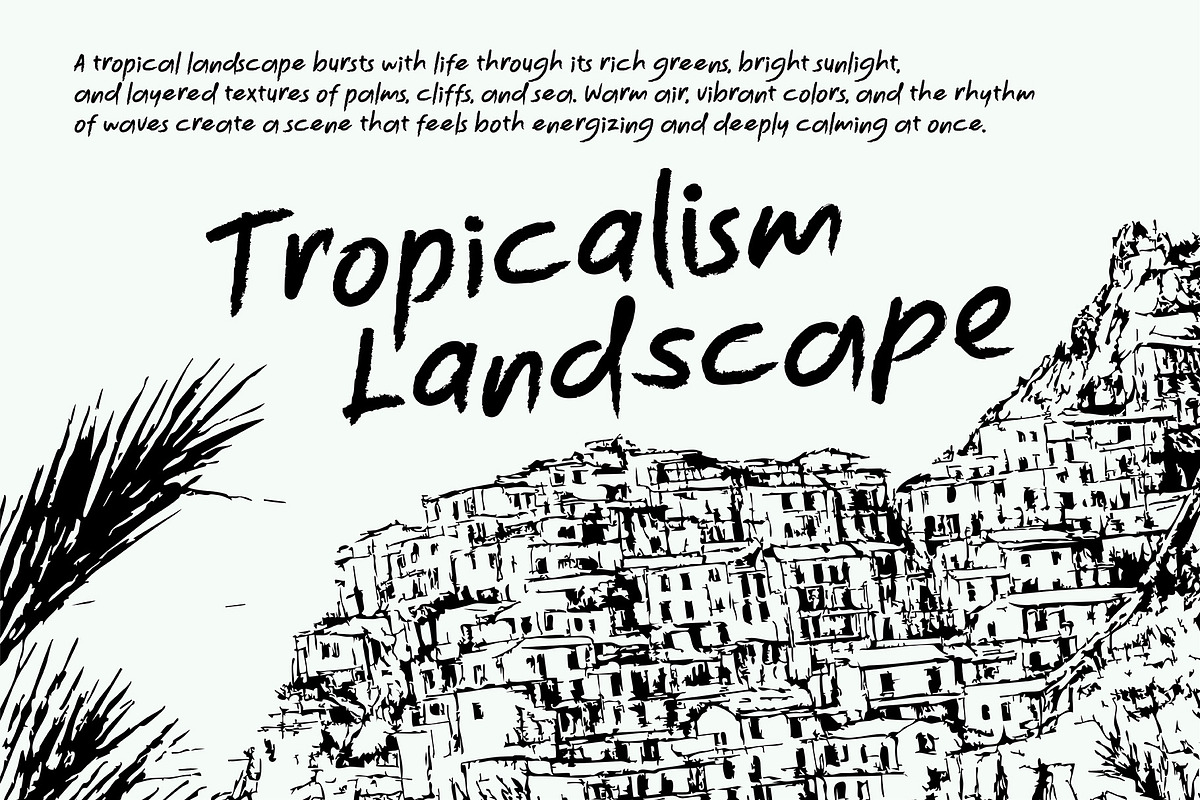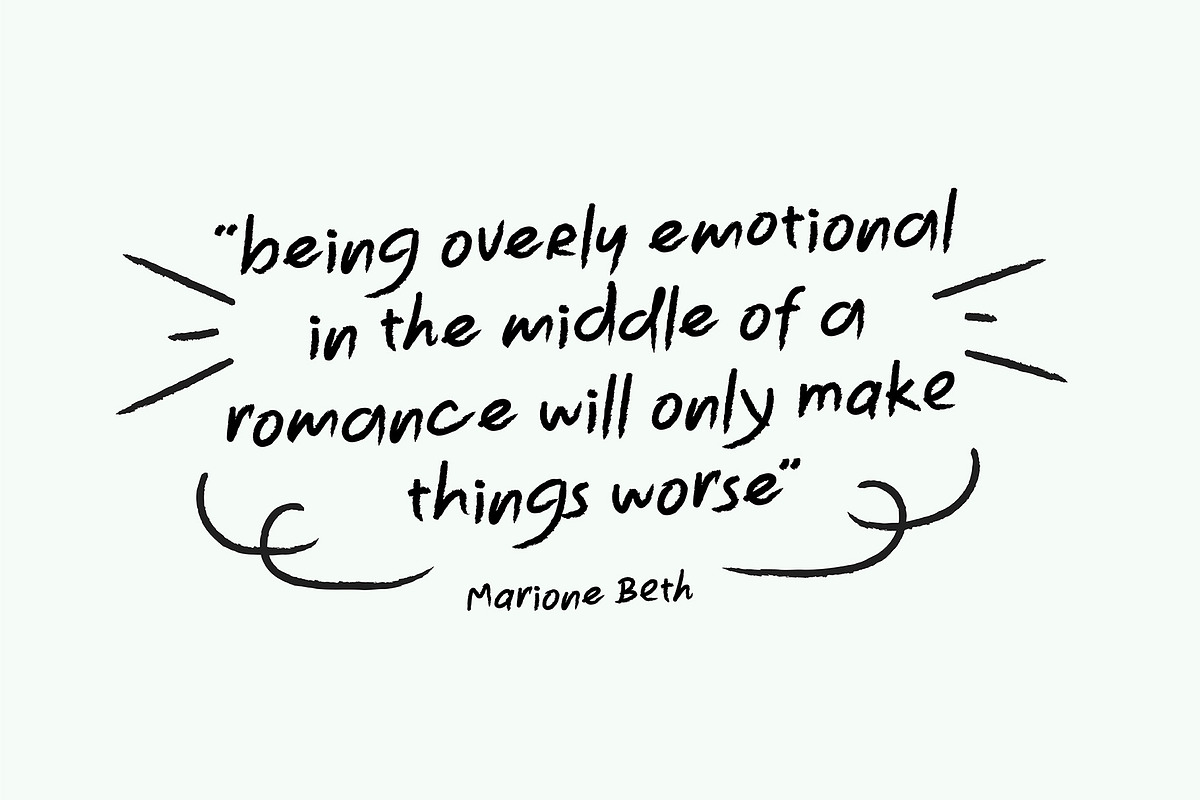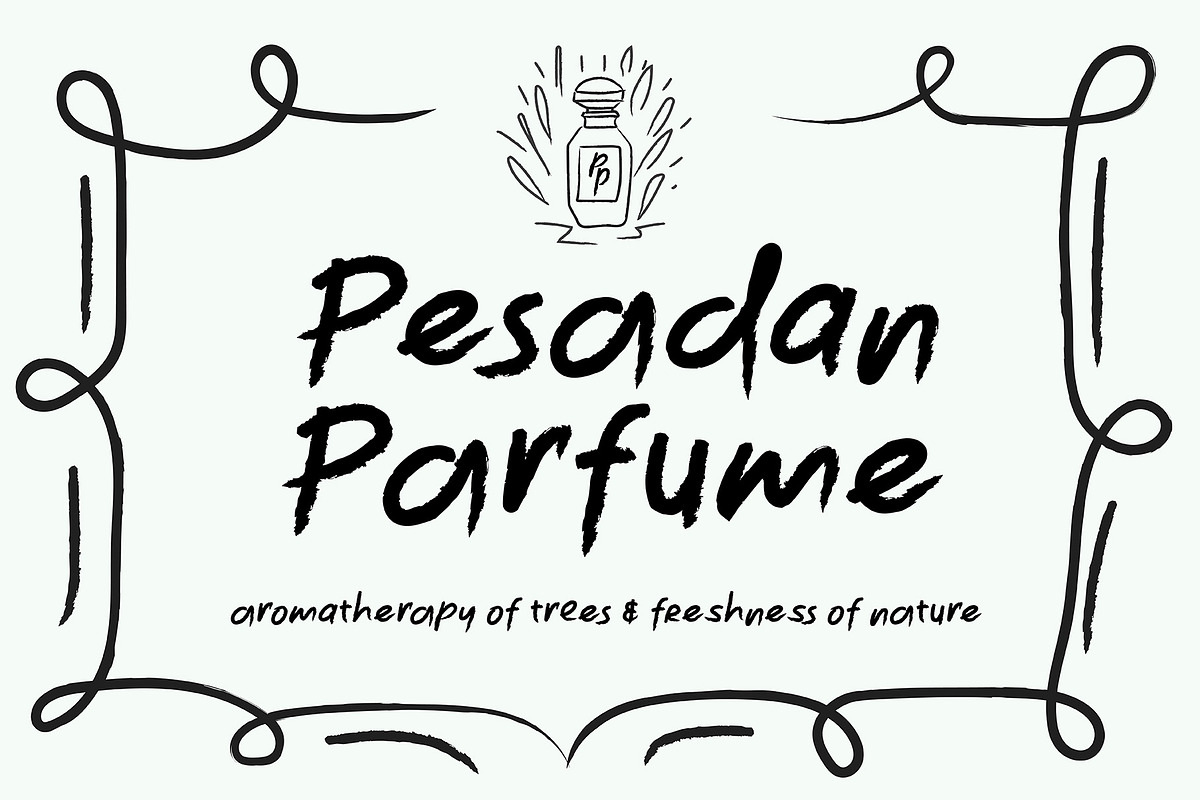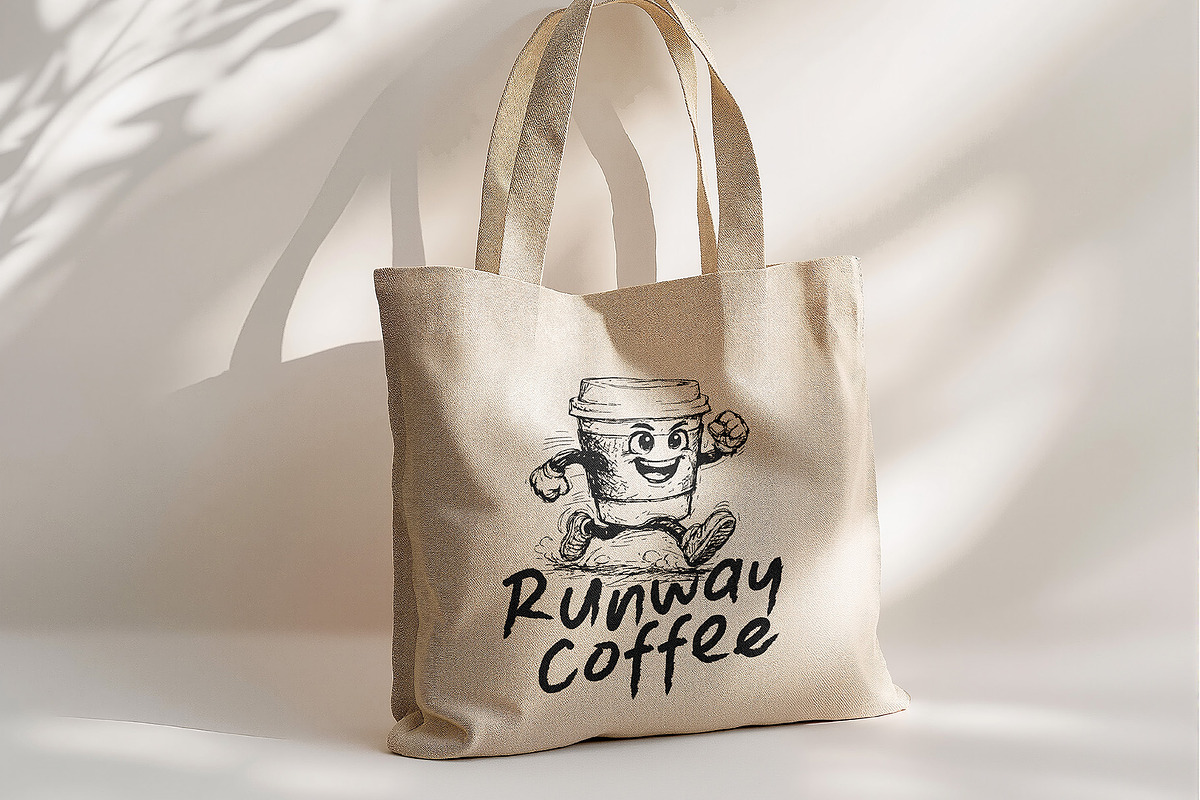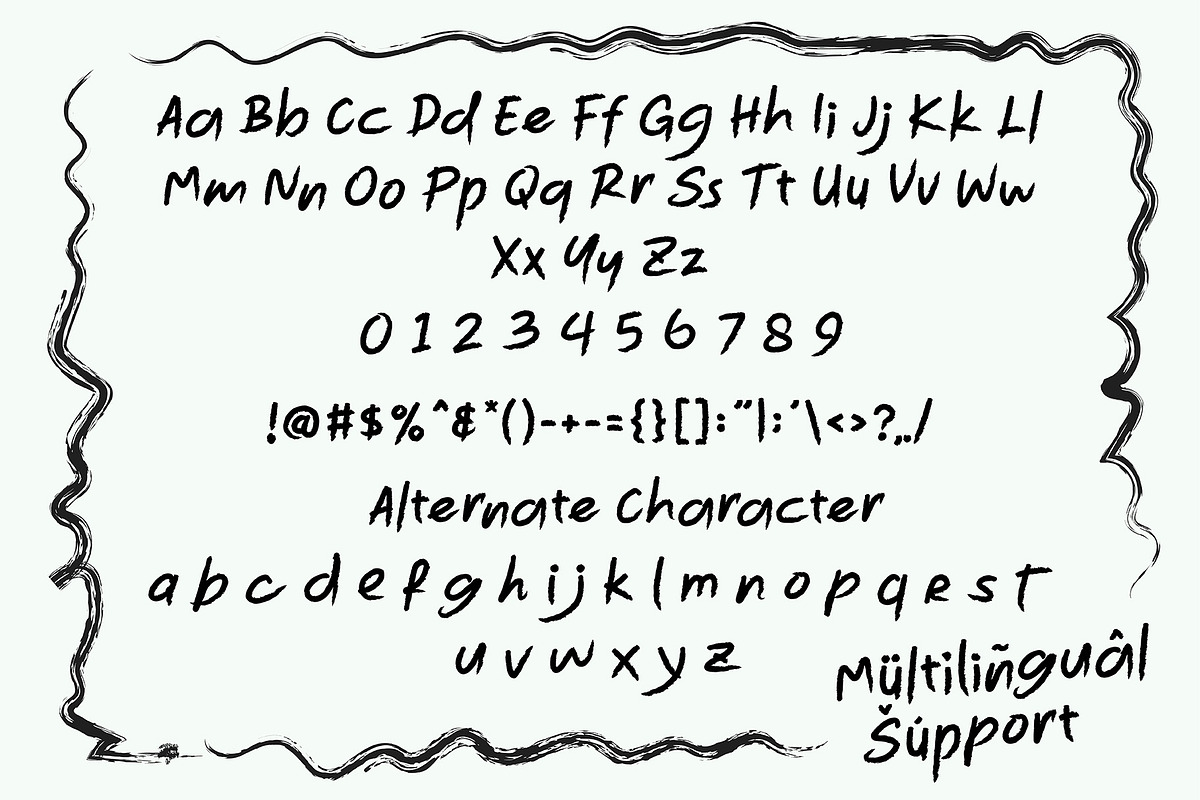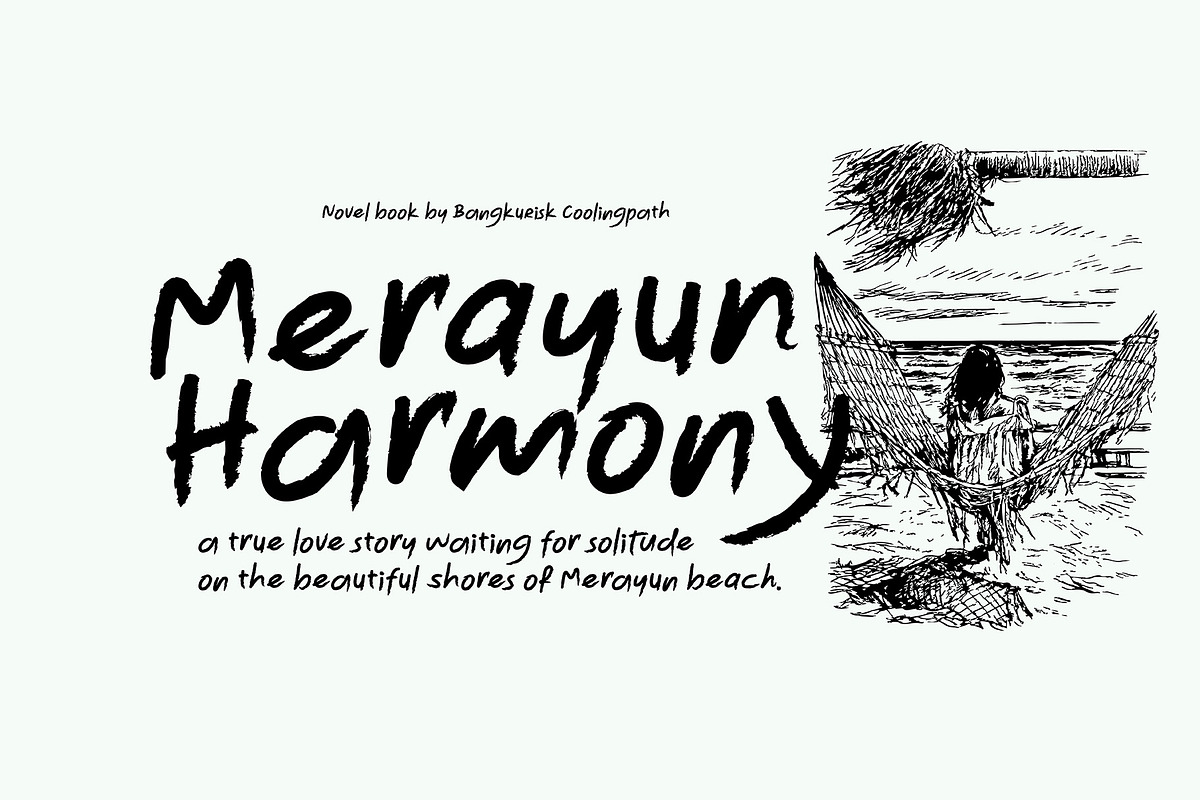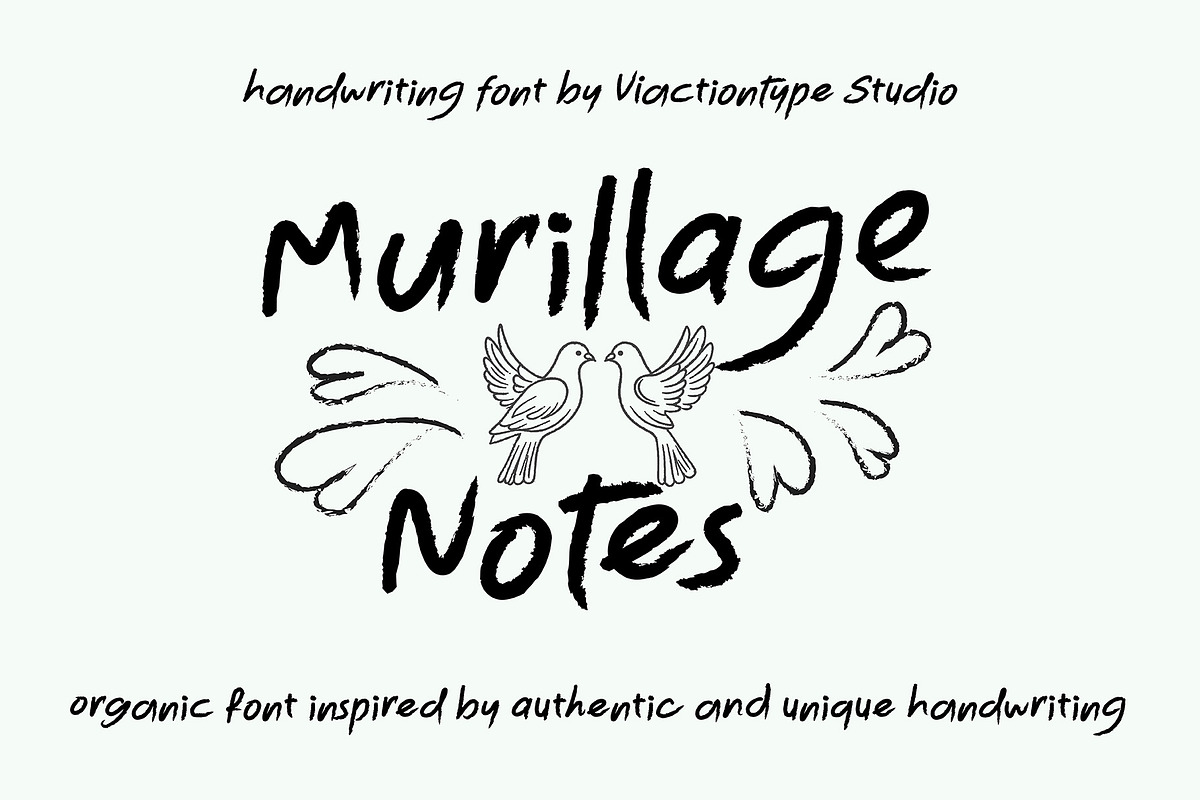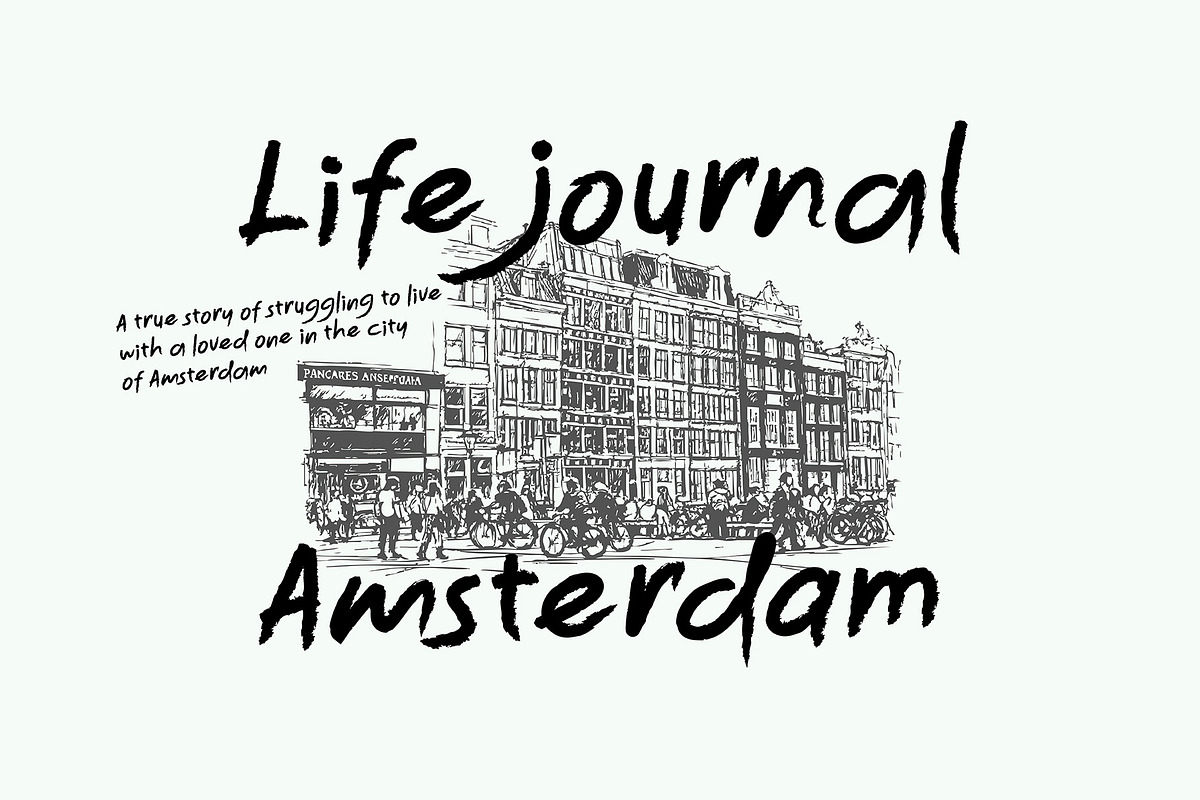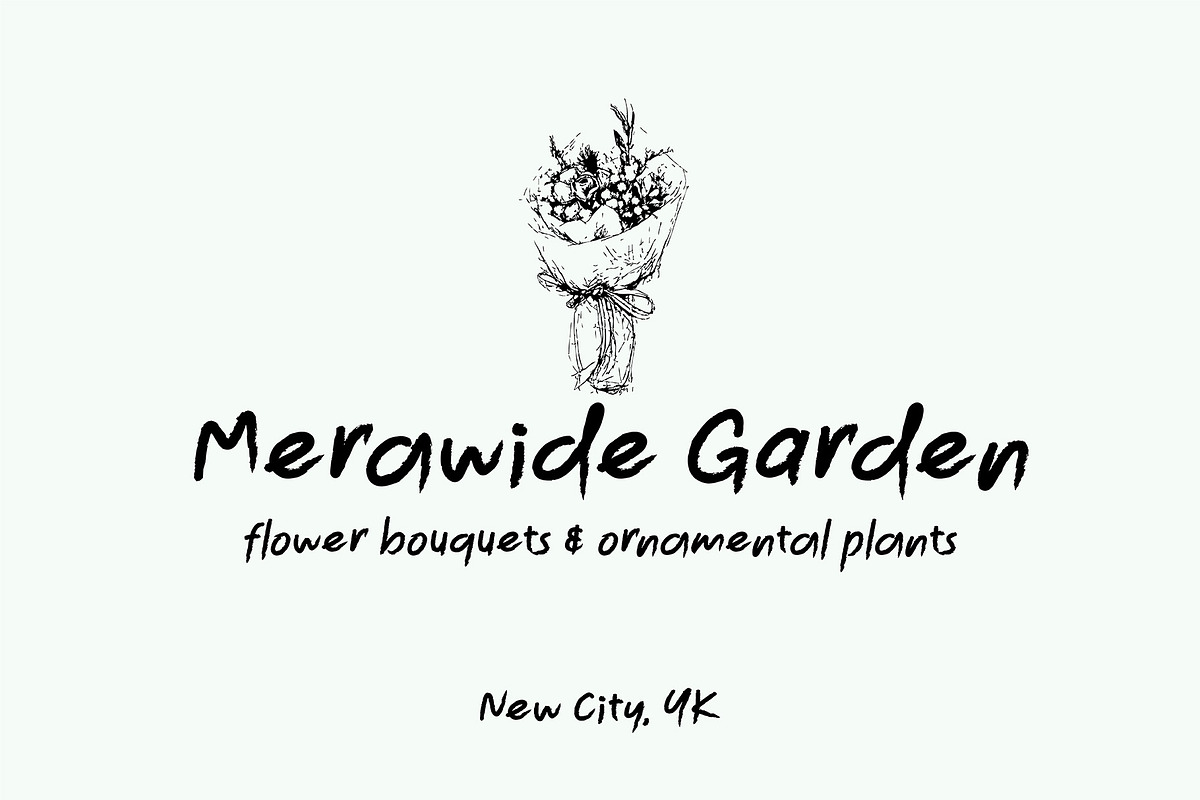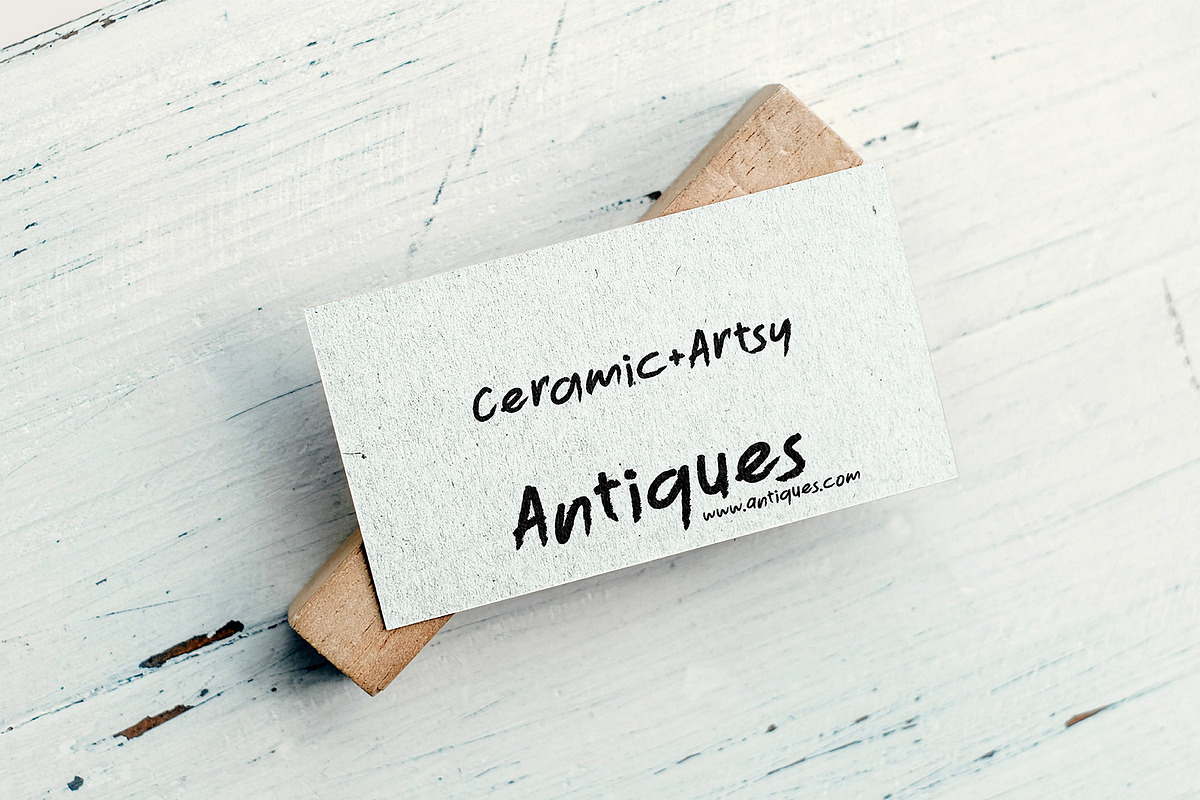
VT Murillage Notes–Handwriting Brush
Murillage Notes – Handwriting Brush Font is a graceful and expressive display brush typeface crafted to capture the beauty of dynamic, feminine handwritten strokes. Inspired by real ink brush handwriting, this font flows with smooth curves, natural rhythm, and soft movement—bringing a sense of elegance, warmth, and luxury to every composition.
Designed with lively brush pressure and authentic stroke texture, Murillage Notes delivers a realistic handcrafted feel. Each letterform shows visible brush detail and organic variation, making your typography look personal, artistic, and premium rather than mechanical. The style feels free and fluid while maintaining refined structure—perfect for designs that aim to be both expressive and sophisticated.
This font includes two styles: Regular and Oblique, allowing you to create motion and emphasis in your layouts. It also comes with alternate characters and multilingual support, giving you greater creative flexibility for branding and international projects.
Murillage Notes – Handwriting Brush Font works beautifully for luxury branding, beauty products, fashion labels, wedding stationery, cosmetic packaging, editorial headlines, signature logos, and elegant social media visuals.
Bring soft power and flowing elegance into your typography with Murillage Notes.
- Feminine and dynamic handwriting brush style.
- Inspired by real ink brush lettering
- Natural curves with authentic brush texture
- Elegant, soft, and expressive character
- 2 styles: Regular & Oblique
- Alternate characters included
- Ideal for luxury, beauty, fashion, and elegant branding